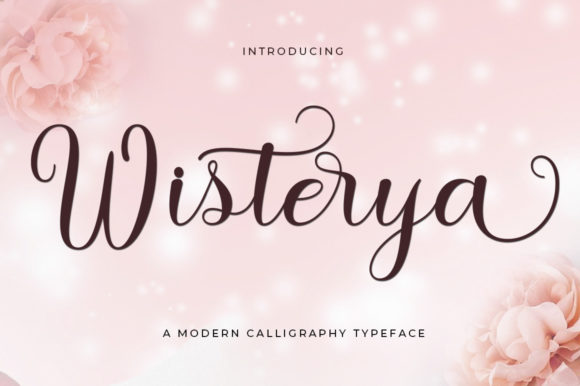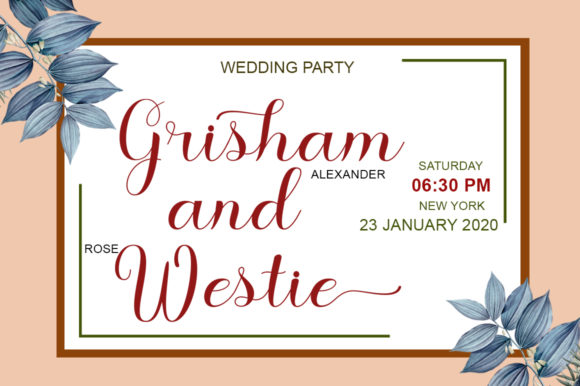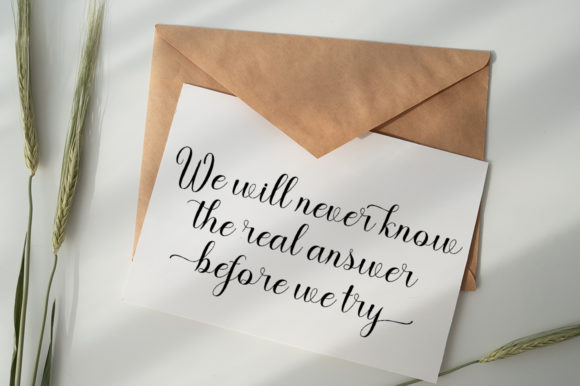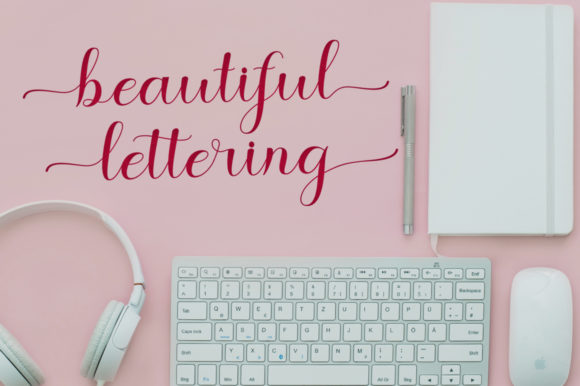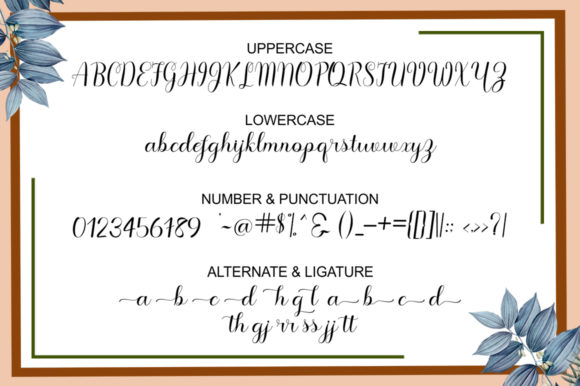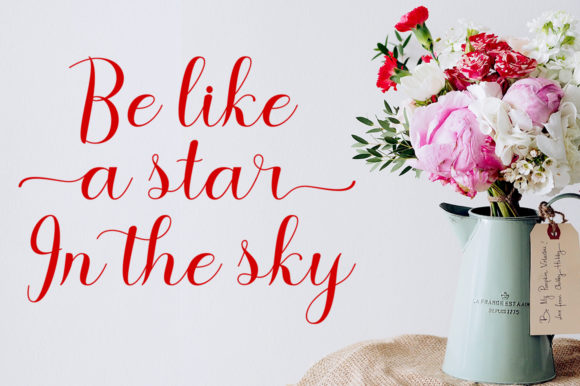
About Wisterya Script Font
Wisterya is a playful and modern script font with an irregular baseline. Fall in love with its authentic feel and use it to create gorgeous wedding invitations, beautiful stationary art, eye-catching social media posts, and cute greeting cards.
This font is PUA encoded which means you can access all of the dazzling glyphs and swashes with ease! It also features a wealth of special features including alternate glyphs and ligatures.